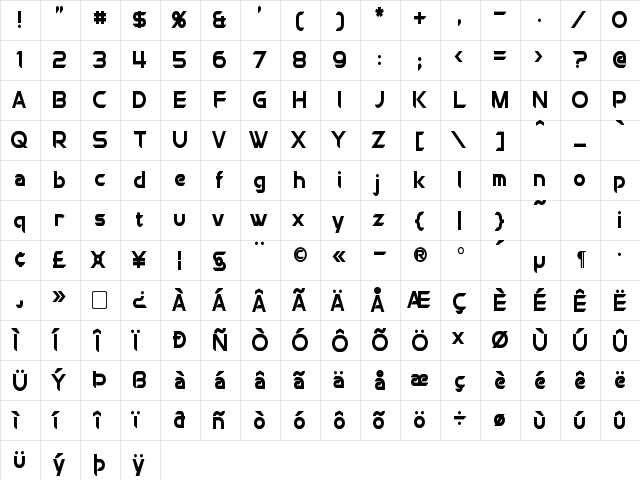
Chromia Condensed Bold
| Foundry | Pixel Sagas |
| Designer | Neale Davidson |
Design Context for Chromia Condensed Typeface
Chromia Condensed offers clean, dependable letterforms without strong stylistic allegiance, making it a practical choice for designers who need flexibility. The heavy weight commands attention and anchors typographic hierarchies. Its narrow stance lets it pack a punch even in space-constrained designs.